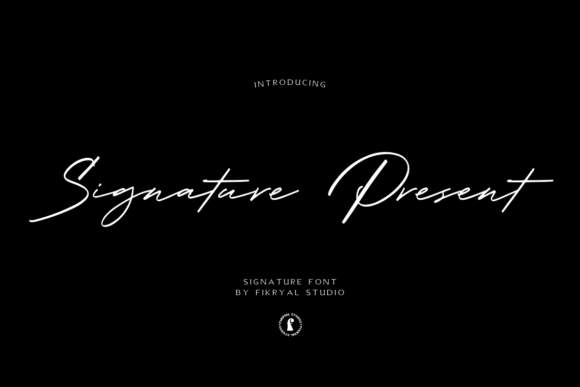
Journey into the Realm of Elegance: Discover Signature Present – The Enchanting Script Font
Unleash the allure of handwritten elegance with Signature Present, a captivating script font that dances across your designs with grace and sophistication. Crafted with meticulous care, this font captures the essence of calligraphy, transforming your words into delicate strokes of artistry.
Embrace the uniqueness of Signature Present's handwritten charm, a feature that effortlessly adds a personal touch to your creative endeavors. Let your invitations, greeting cards, and branding materials exude a sense of exclusivity, captivating your audience with every letter.
Immerse yourself in the beauty of Signature Present's flowing lines and precise detailing, elements that harmoniously blend to create a timeless masterpiece. Your designs will radiate refinement, leaving an unforgettable impression on those who behold them.
Whether you're a seasoned designer or just starting your creative journey, Signature Present is your perfect companion. Its versatility effortlessly complements a myriad of projects, from wedding invitations to business cards, and everything in between.
Make Signature Present your signature font, the one that elevates your work, transforms your ideas into stunning realities, and leaves a lasting legacy of creativity. Experience the magic of Signature Present today and elevate your designs to new heights of sophistication and style.